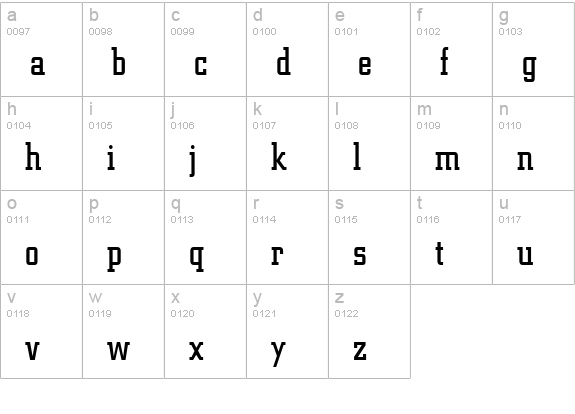
Geo 957 Condensed Normal is the standard, neutral, condensed-width variant in the Geo typeface family \xE2\x80\x94 well suited to general body text, paragraphs, and standard typographic work.
The Geo 957 Condensed Normal font is a sleek and modern typeface that is perfect for a variety of design projects. Its condensed style gives it a unique and eye-catching appearance that will make your text stand out. Whether you're creating a poster, logo, or website, this font is sure to make a bold statement. Best of all, the Geo 957 Condensed Normal font is available for free download at FontsMarket.com. This means you can start using it in your projects right away without having to worry about any additional costs. Don't miss out on this fantastic opportunity to enhance your designs with a high-quality, professional font that is both stylish and versatile. Download the Geo 957 Condensed Normal font today and take your designs to the next level!